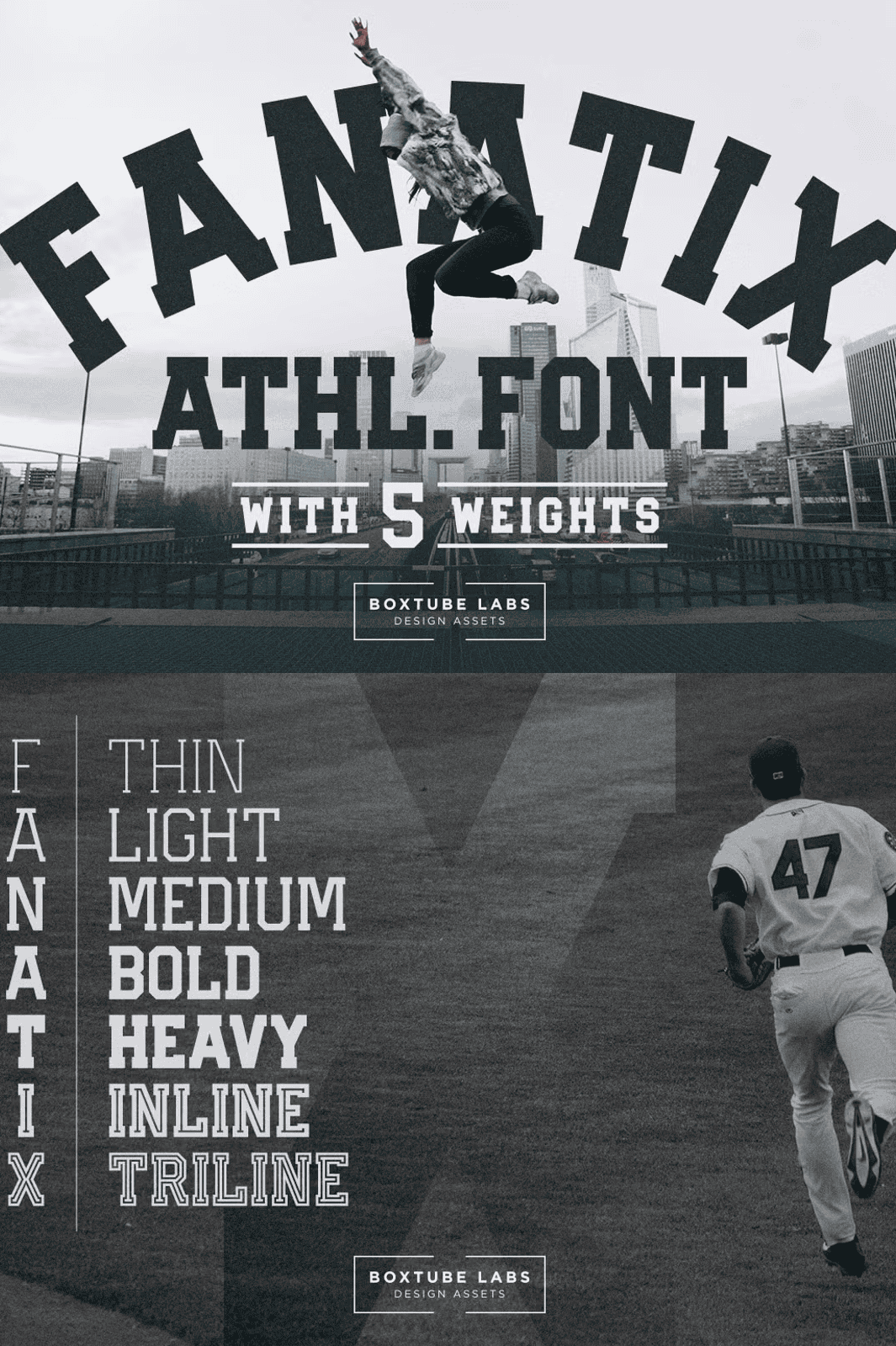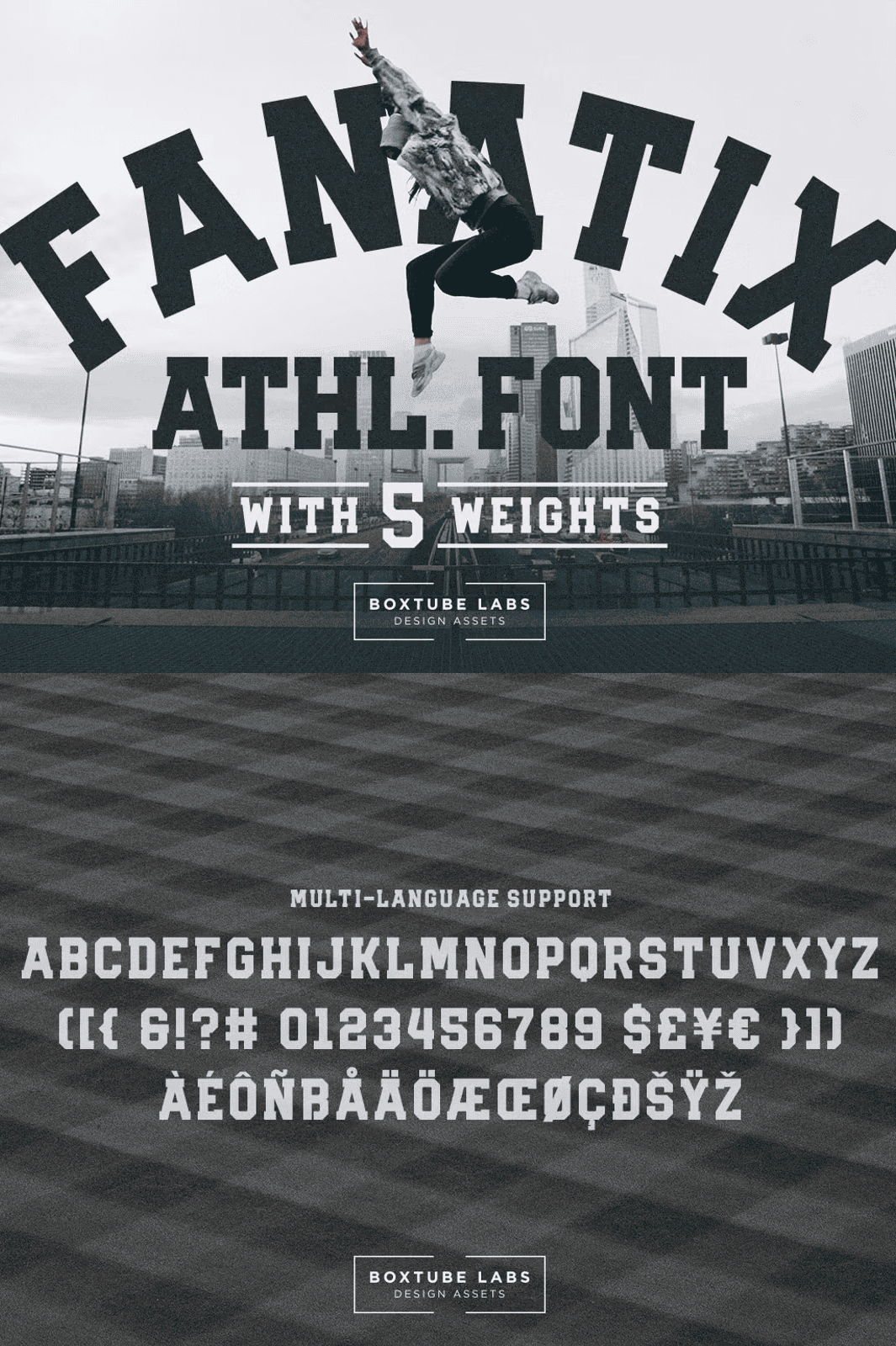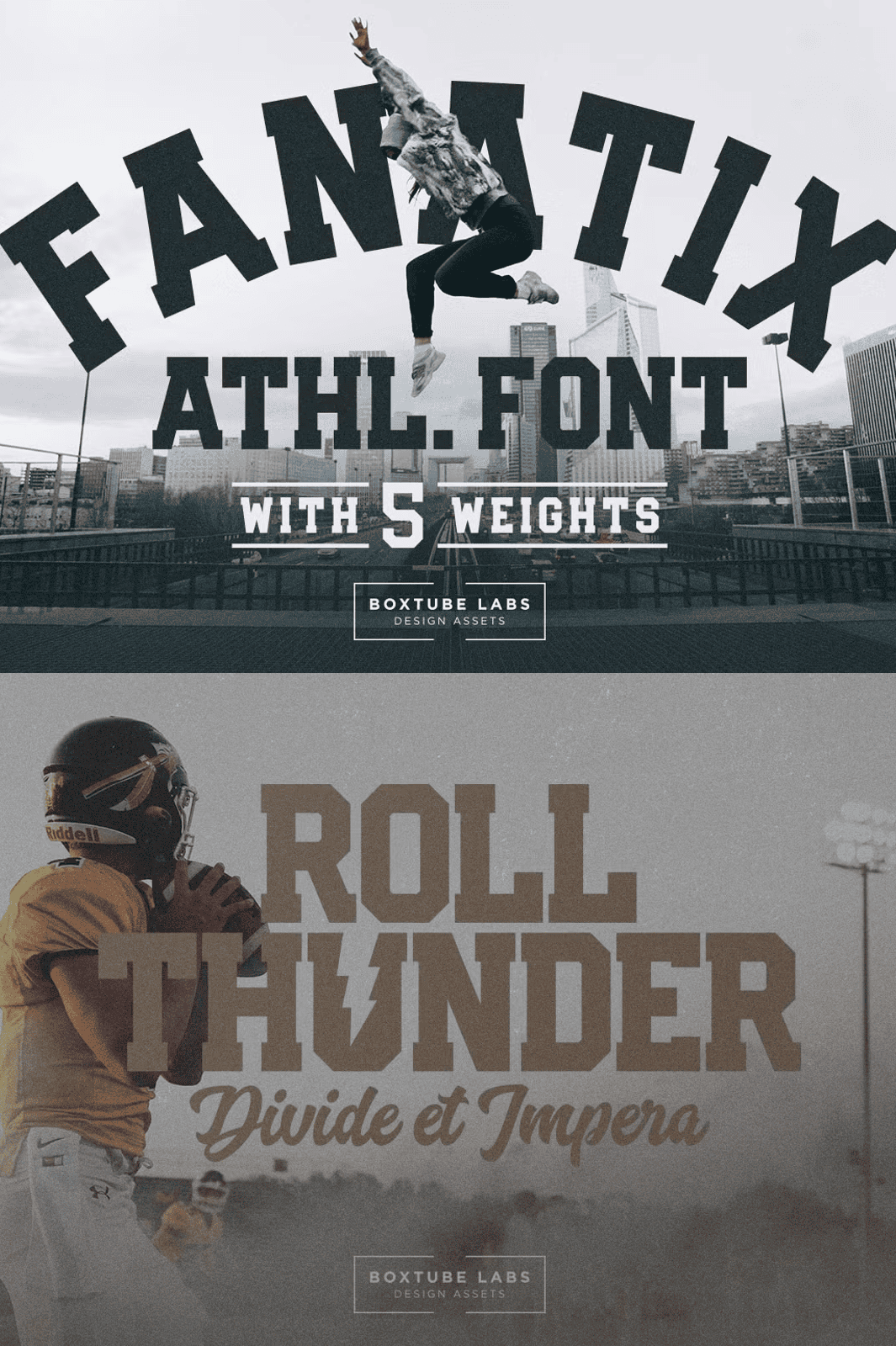
Ignite your creative fire with Fanatix—a bold, electrifying sports display font family engineered for impact. Whether you’re crafting a championship logo, designing high-energy posters, branding a team apparel line, or building a dynamic fan experience, Fanatix delivers unmatched presence and modern muscle. This isn’t just a font—it’s a design weapon built for victory.
Command Attention with 5 Precision Weights
From ultra-thin to maximum-heavy, Fanatix gives you full control over visual hierarchy and intensity. Each weight is meticulously crafted to maintain crisp geometry and maximum legibility, even at small sizes or under heavy compression. Use the Thin weight for sleek, high-end logos or subtle accents. Jump to Light for a modern, balanced look. Choose Medium for clear, professional display text. Go bold with Bold for statement headlines. Then unleash the unstoppable power of Heavy for maximum dominance—perfect for championship banners, sports event posters, and premium merchandise.
Unlock Instant Creativity with Inline and Triline Styles
Break free from generic typography with two original creative extensions: Inline and Triline. These stylistic variants transform your text into instantly recognizable, professional-grade designs without extra effort.
- Inline – Clean, minimal, and sleek. Perfect for modern team branding, digital graphics, and minimalist sports visuals.
- Triline – A bold, three-line structure that adds dramatic depth and movement. Ideal for event announcements, dynamic posters, and bold signage.
These styles work seamlessly with all weights, giving you thousands of unique design combinations right out of the box.
Power Your Projects with Multilingual Support
Fanatix is built for a global audience. It supports 19 major Western languages, ensuring your typography stays sharp and authentic across cultures. Whether you’re branding a club in Spain, a league in Germany, or a youth tournament in Sweden, Fanatix handles all characters flawlessly.
Transform Your Brand with Pro-Level Typography
Stop blending in. Start standing out. Fanatix transforms your sports visuals from ordinary to extraordinary—cutting through the noise with a confident, aggressive, and modern voice. Use it to launch a new team, create a viral sports campaign, design merch for a fanbase, or elevate the look of any athletic brand.